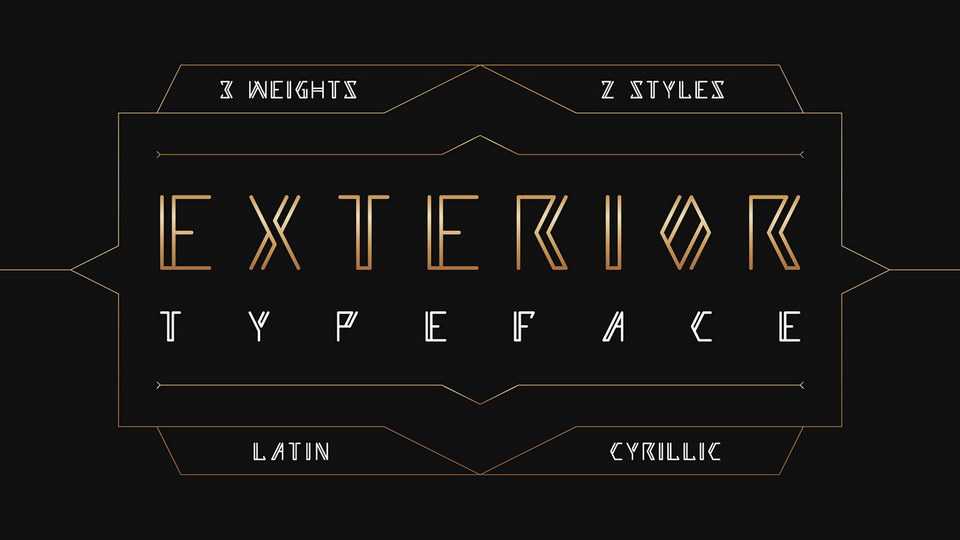
Download Exterior font, an outlined geometric typeface in Light and Light Rough styles. Exterior font is an extremely unique typeface that is great for headlines, products, packaging and impressive type layouts.
Designer: 2DFUNS Studio